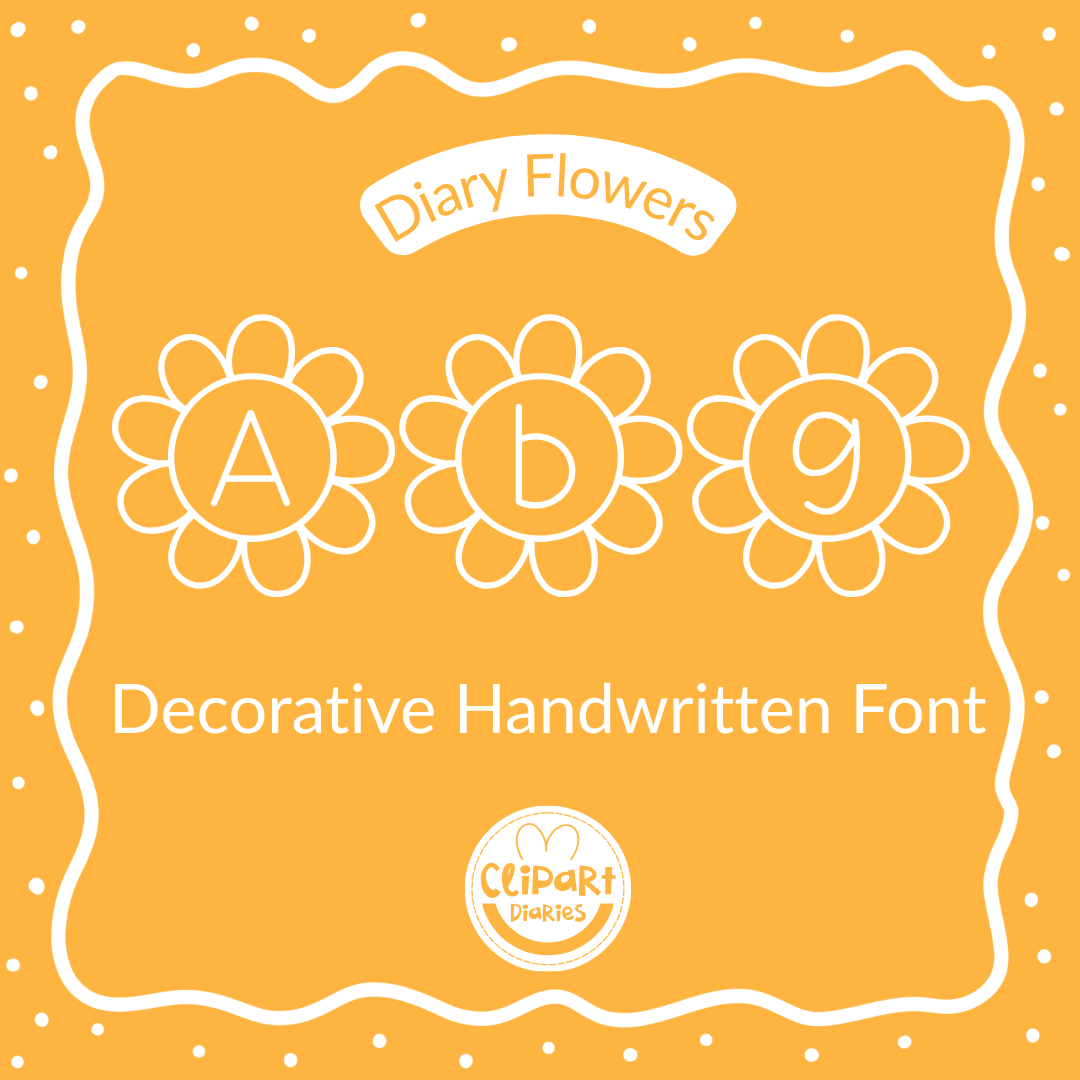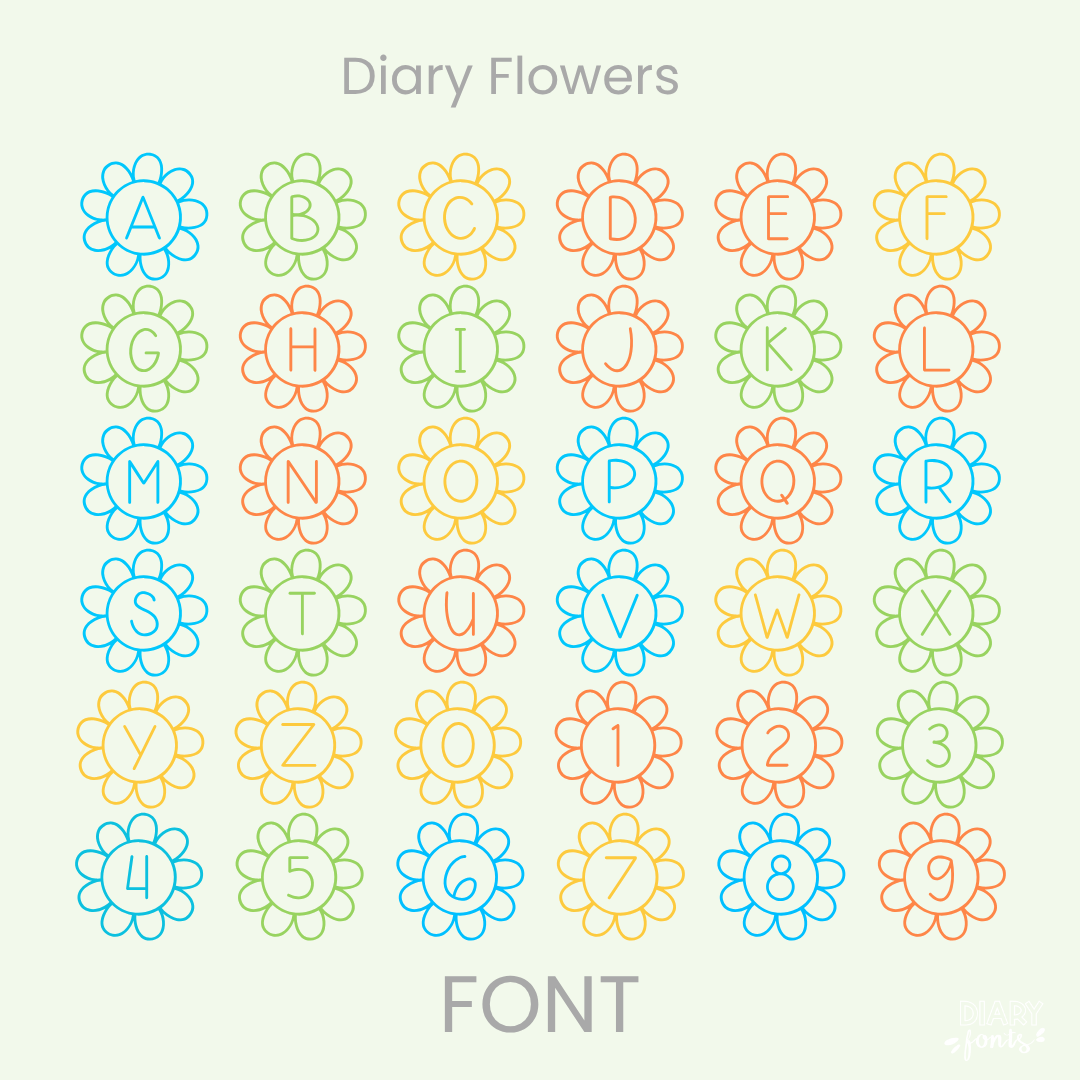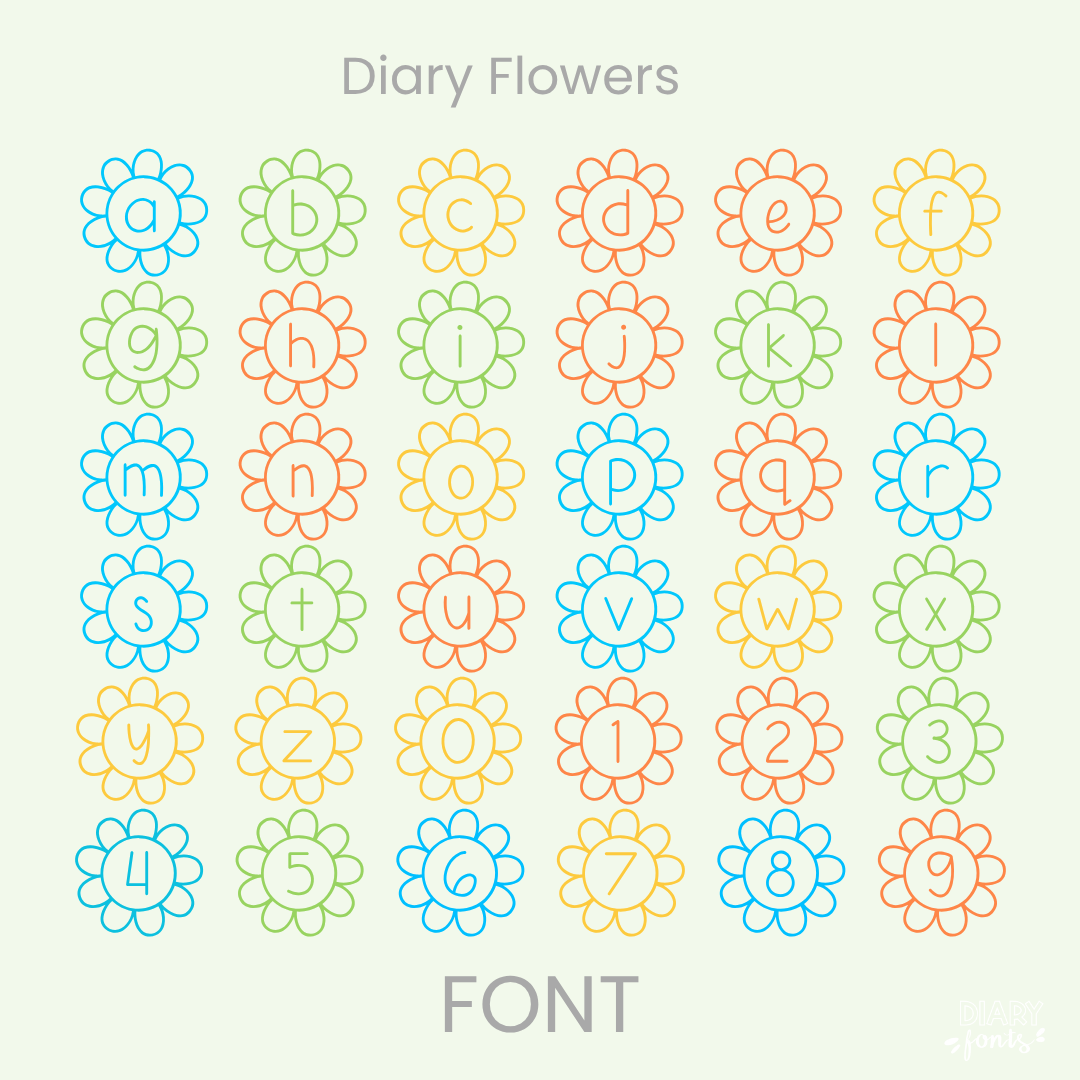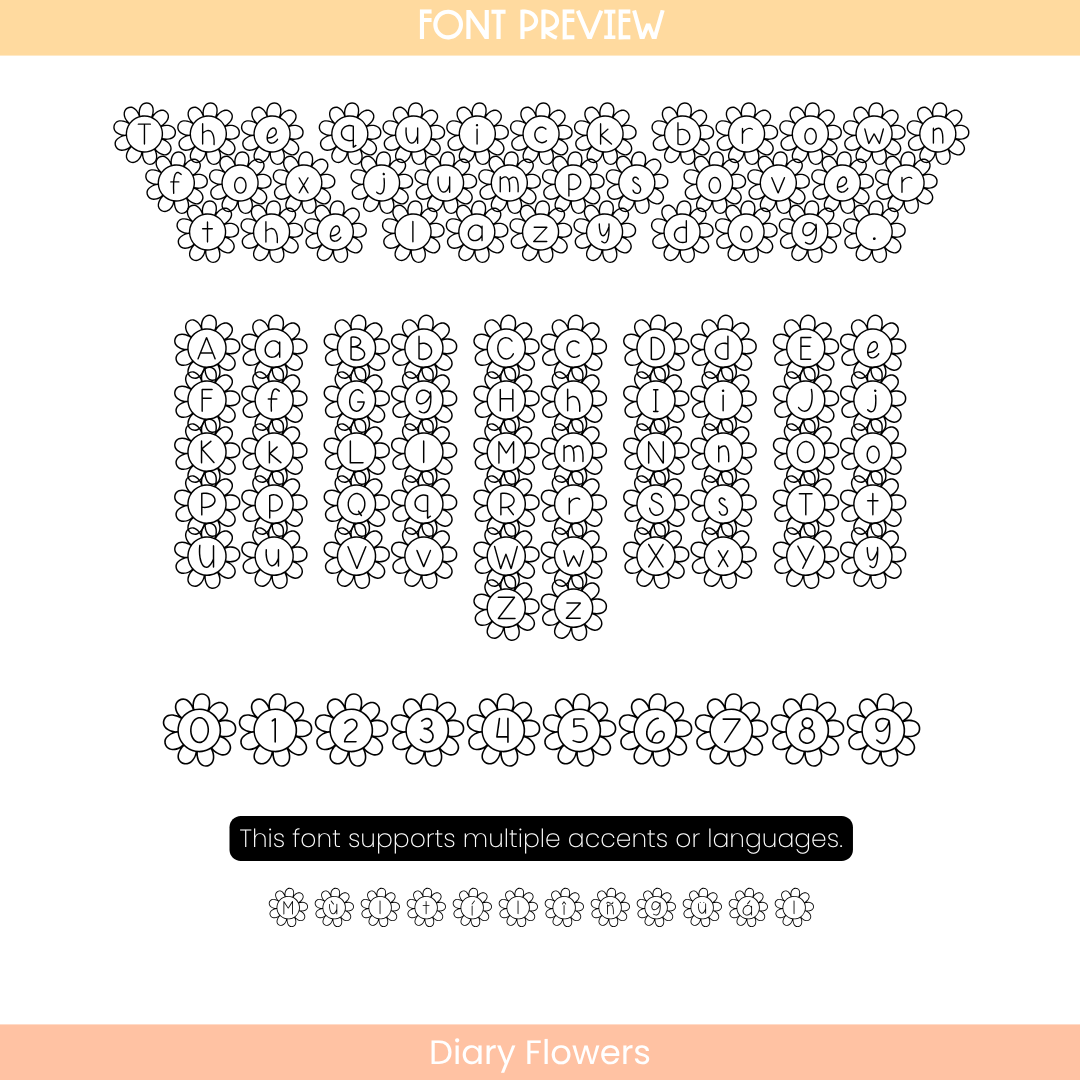
If you want to give your projects a cheerful and welcoming feel, Diary Flowers is an excellent choice. It features playful, hand-drawn character styles with lowercase and uppercase letters cleverly integrated with tiny blooming flowers and delicate leaf details. While keeping its uniquely artistic and decorative personality, the core letterforms remain clear and legible for students. This makes it an eye-catching option for seasonal spring activities, bulletin board headers, morning meeting slides, and creative school crafts. The font includes a full set of letters, numbers, and accents to support different languages. It is ready for use in Canva, MS Office, and Adobe Apps, and it works flawlessly on the iPad with GoodNotes and Procreate. Whether for personal classroom designs or commercial teacher resources, this font adds a soft and approachable aesthetic to your work.
The Diary Flowers is a beautiful, decorative handwritten font featuring charming floral accents designed to bring a fresh, whimsical, and creative look to your digital resources and classroom materials.